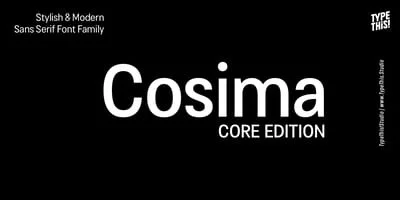
Cosima Core Edition Font
Cosima Core Edition Font is perfect for tech startups, software interfaces, modern corporate branding, digital magazines, minimalist websites, progressive design agencies, and contemporary editorial layouts. This cutting-edge typeface represents the future of typography with its clean aesthetics and professional functionality.
What makes Cosima Core Edition Font exciting is its revolutionary approach to contemporary typography design. The font features precision-engineered letterforms with optimized spacing and advanced geometric principles that create exceptional clarity across all digital and print applications. Its modern character reflects current design trends while maintaining timeless appeal, making it ideal for forward-thinking brands that want to communicate innovation and reliability.
The Cosima Core Edition Font family includes comprehensive weight variations from thin to black, complete with matching italics and condensed versions. The extensive character set offers multilingual support, advanced ligatures, mathematical symbols, and professional typographic features. OpenType capabilities include contextual alternates, stylistic sets, and fraction support for technical documentation and digital applications.
Whether you're developing modern brand identities, creating sleek user interfaces, or designing contemporary publications, Cosima Core Edition Font provides unmatched versatility and performance. This sophisticated typeface combines cutting-edge design principles with practical functionality, ensuring your projects maintain a professional edge while delivering exceptional readability and visual impact across all modern communication platforms.